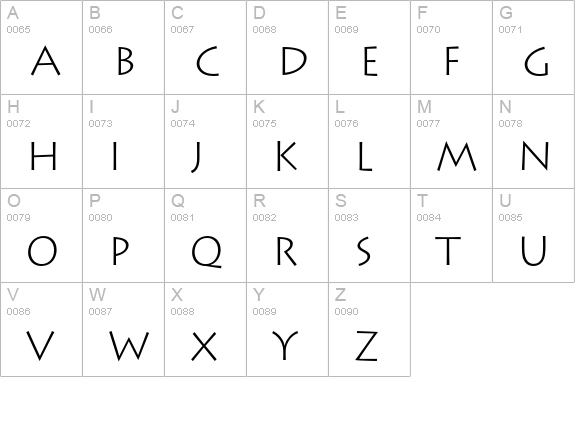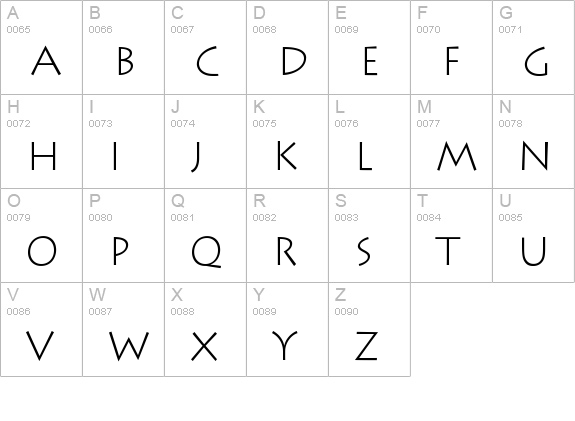
Lithos Light is a refined, elegant variant in the Lithos typeface family \xE2\x80\x94 well suited to elegant body text, refined sub-headings, and luxury branding.
Lithos Light is a sleek and modern typeface that exudes elegance and sophistication. With its clean lines and minimalist design, this font is perfect for a wide range of design projects, from logos to website headers. The light weight of the font adds a delicate touch to any text, making it ideal for conveying a sense of refinement and style. What's even better is that Lithos Light is available for free download at FontsMarket.com. This means that you can easily access this beautiful font and use it in your projects without any cost. Whether you're a designer looking to add a touch of class to your work or a business owner in need of a professional font for your branding, Lithos Light is the perfect choice. Download it today and elevate your designs with this stunning typeface.